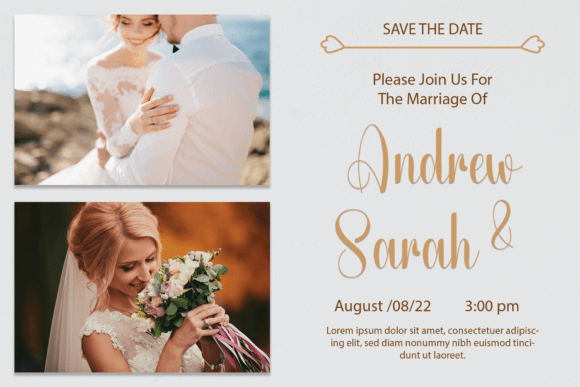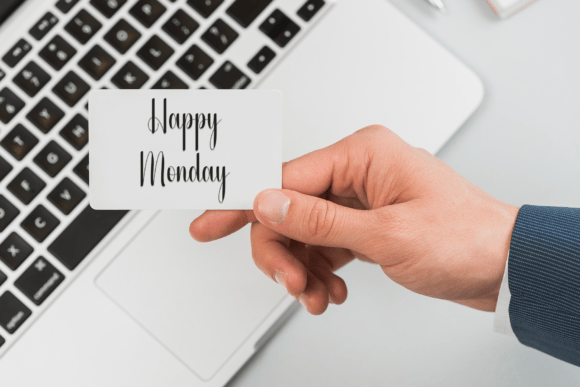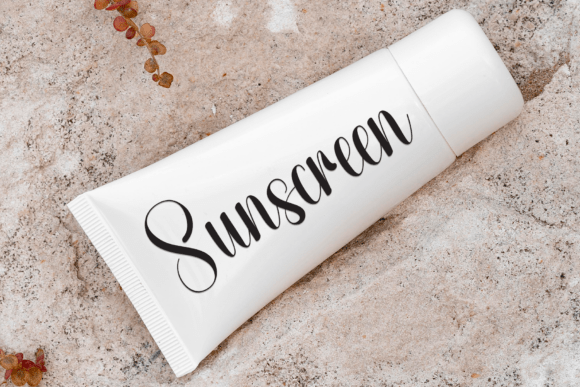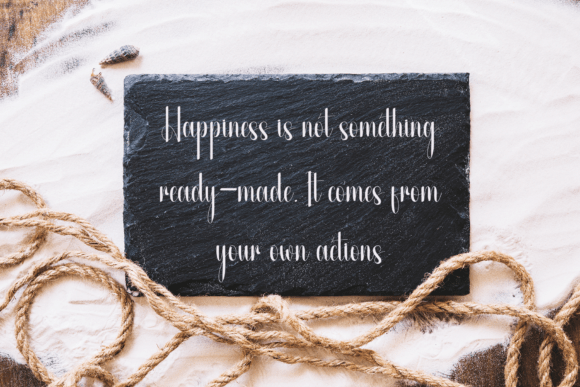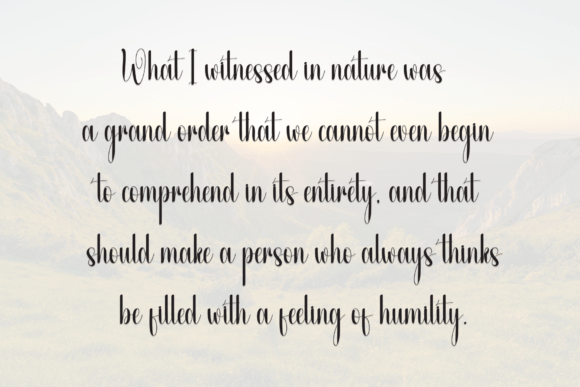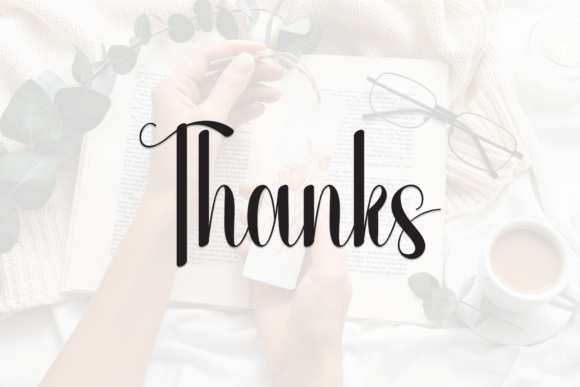
Introduction to Happy Bookmark Font
Happy Bookmark is an elegant and creative handwritten script font that beautifully blends sophistication with charm.
Featuring graceful strokes, tall letterforms, and a modern calligraphic flow, this typeface is ideal for book covers, journaling designs, personal branding, wedding invitations, and lifestyle content It brings a handwritten, literary flair to every project, perfect for those who love refined aesthetics with a personal touch.
Key Features of Happy Bookmark Font